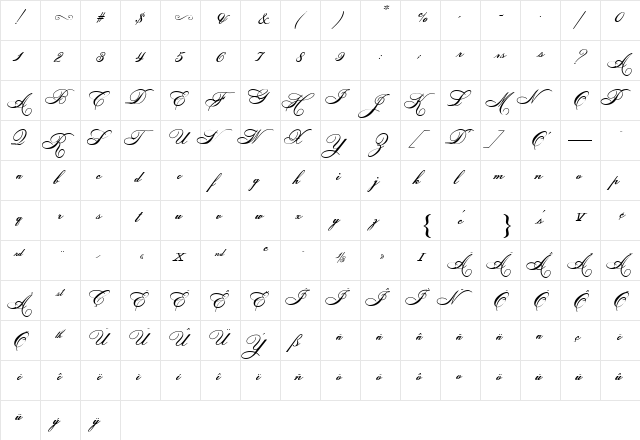
HelenaScript ES Regular Font Preview
HelenaScript ES Regular
Design Context for HelenaScript ES Typeface
HelenaScript ES brings a calligraphic fluidity to the page — its connecting strokes and expressive curves give it an unmistakably human quality.
Font Pairing: Combine HelenaScript ES with a simple geometric sans for maximum contrast — the tension between flowing curves and clean structure is a classic typographic pairing.
Pro Tip: Pair HelenaScript ES with a clean sans-serif for supporting text. The contrast between fluid script and geometric structure creates an elegant typographic hierarchy.